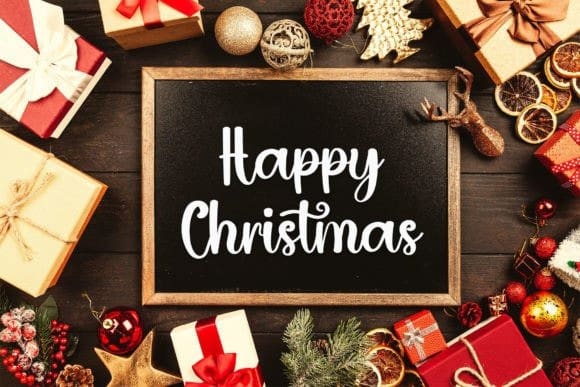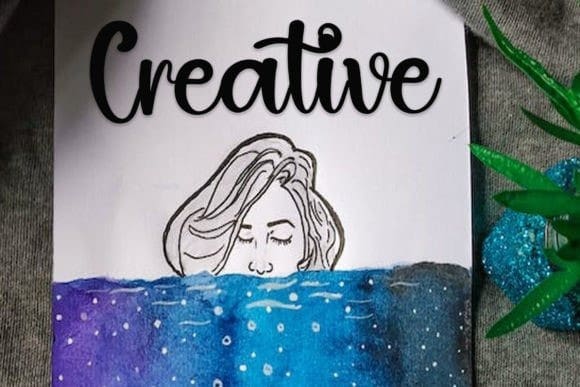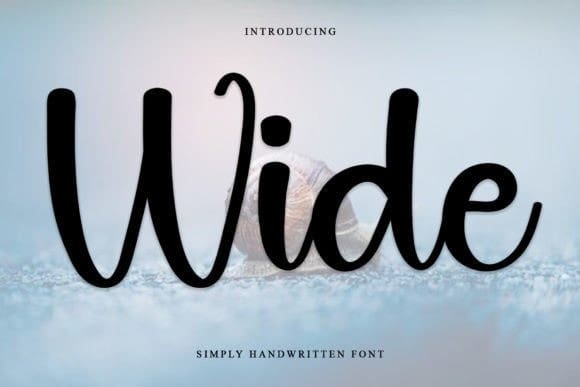
Wide Script Font
Wide Script Font by PiPi Creative 12,357 downloads
Wide Script Font
Wide Script Font is a neat and beautiful handwritten font described by an elegant touch, perfect for your favorite projects. Fall in love with its incredibly distinct and timeless style, and use it to create spectacular designs!